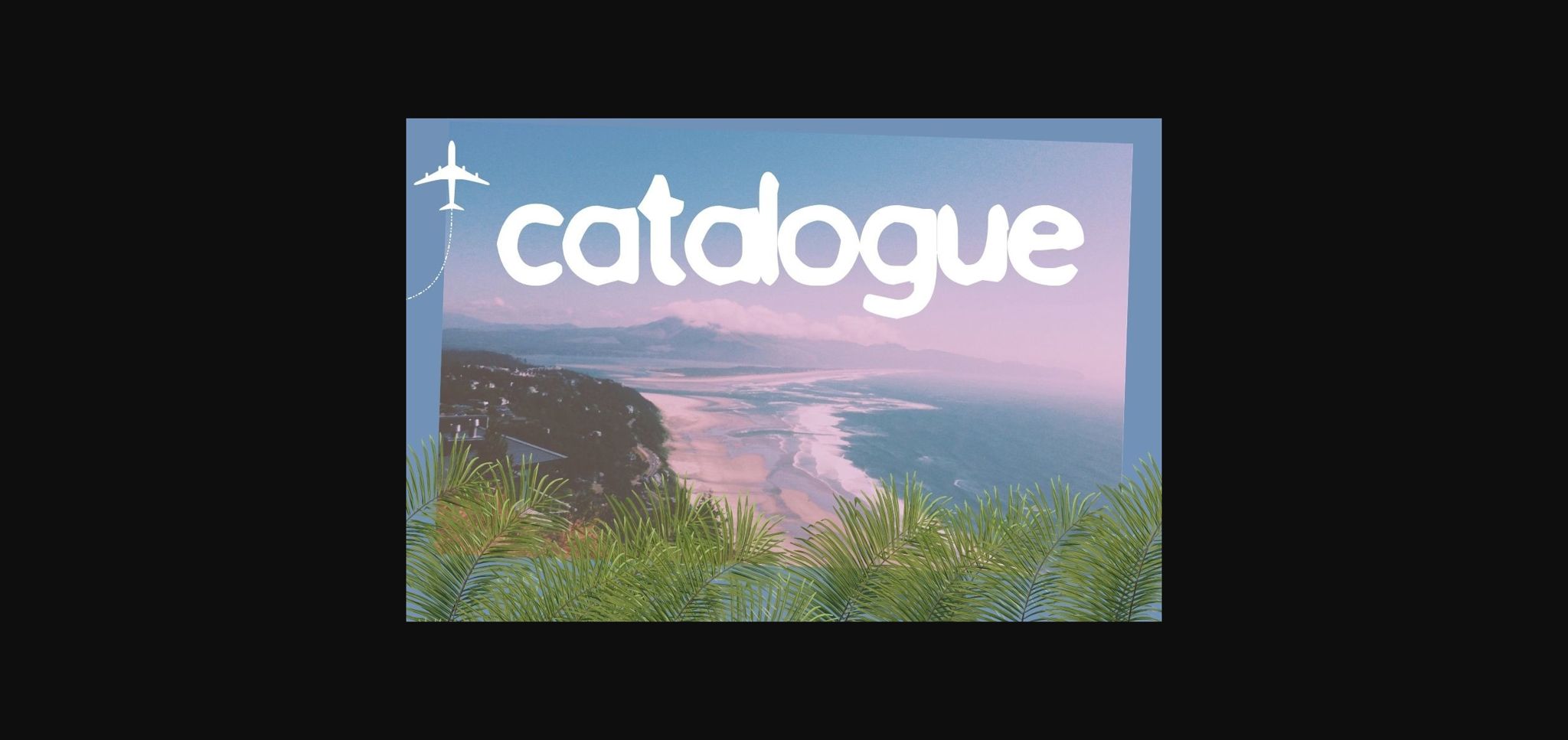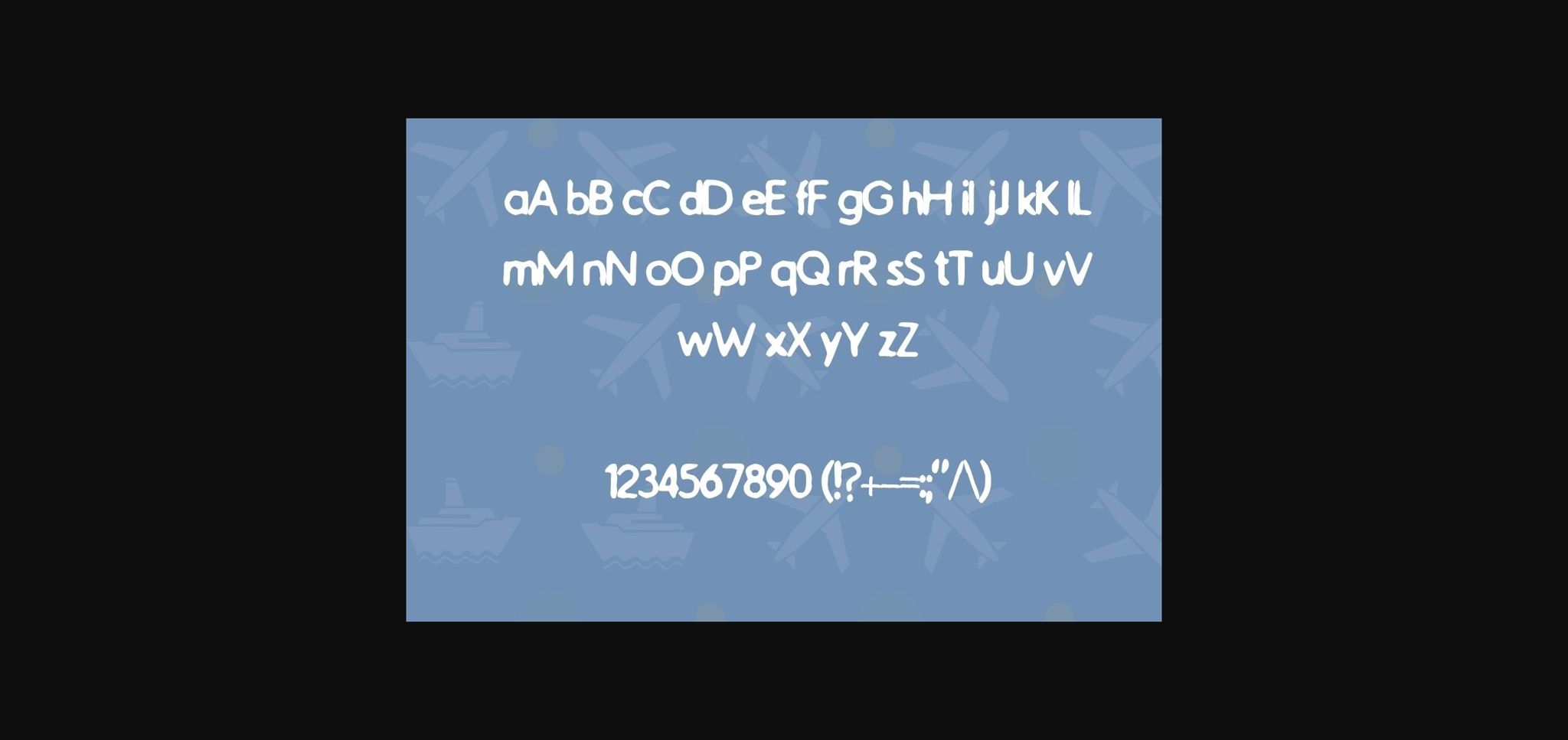
HomeSans Serif FontsCatalogue Font Sans Serif Fonts Catalogue Font FacebookXPinterestWhatsApp 1 of 4 ... Catalogue Font Poster 2... Catalogue Font Poster 3... Catalogue Font Poster 4... About Catalogue Font The Catalogue Sans Serif font is a minimalist and striking typeface. This beautiful font is suitable for a wide variety of designs including scrapbooking, publishing and more! DOWNLOAD NOW People also explored Gans Blasones Font Whitebook Font Filmotype Horizon Story Maker Font Black Friday Font Valentine Love Font Sketchen Font Vintage Rainbow Font Cutie Angel Font 346 0 TagsCatalogue Font Previous articlePretty Magnolia FontNext articleMagartha Font LEAVE A REPLY Cancel reply Comment: Please enter your comment! Name:* Please enter your name here Email:* You have entered an incorrect email address! Please enter your email address here Website: Save my name, email, and website in this browser for the next time I comment. Personal Use Free Gagalin Personal Use Free Read more about this font 5cent Free Graffiti Personal Use Free Read more about this font Cuttie Personal Use Free Read more about this font Chandella Personal Use Free Read more about this font BLOG How to Install and Use Fonts on Windows, macOS, and Web Projects How to Install and Use Fonts on Windows, macOS, and Web Projects Fonts are a crucial part of design and branding. Whether you’re designing a... Exploring Font Trends 5 Fonts That Will Dominate Design Trends in 2026 How to Cut Any Font on Cricut: Convert a Font to SVG (Free)